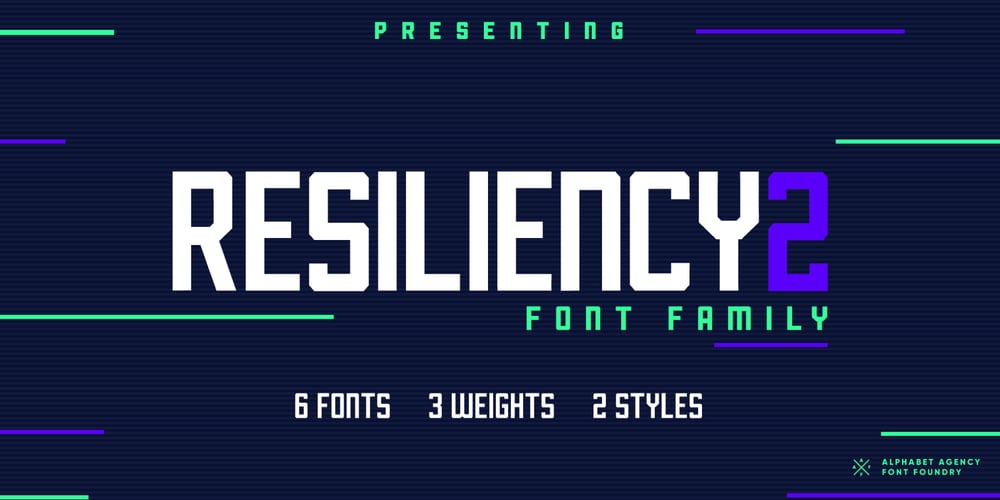
Resiliency2 Font Family was designed by Swinn Jonathan and published by Alphabet Agency. Resiliency2 contains 6 styles and family package options. Resiliency2 has been designed for use in sports,and fitness themes to elevate design work in those genres.The fonts work great with esports themes, in particularly. .The font family contains 6 fonts;3 weights, 2 styles